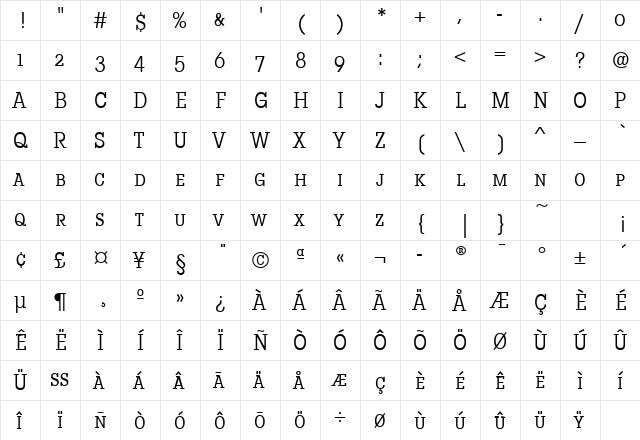
LubalinGraphCdSCITCTT Book Font Preview
LubalinGraphCdSCITCTT Book
LubalinGraphCdSCITCTT Book Font Details
Design Context for LubalinGraphCdSCITCTT Typeface
LubalinGraphCdSCITCTT takes a measured approach to typography — its balanced proportions and neutral character make it a reliable workhorse for both digital and print work.